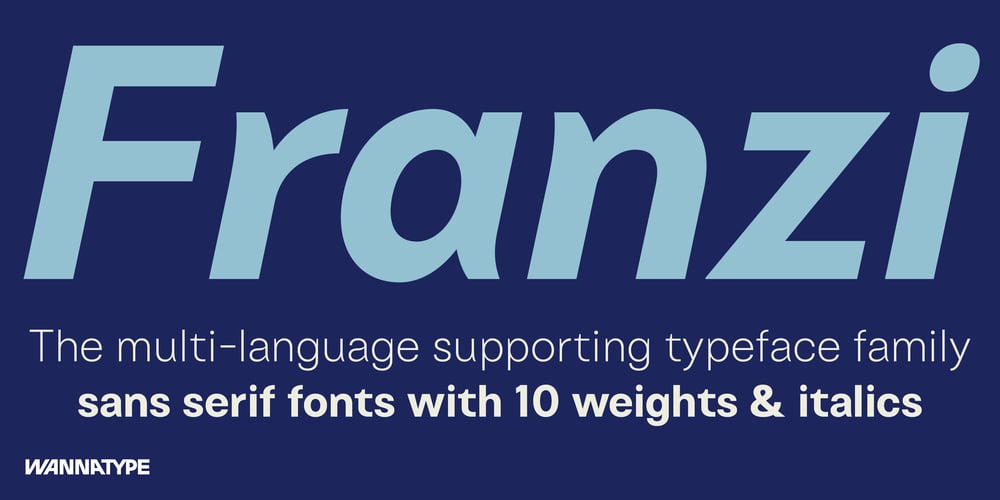
Franzi Variable
Franzi Variable font
Franzi Variable Font Family was designed by Ekke Wolf and published by Wannatype. Franzi Variable contains 1 styles and family package options. The new sans-serif Franzi typeface family – as neutral as can be, but at the same time individual and striking. Its unmistakable character lies in the detail, with no effect pushing itself to the fore. As a wide-running typeface with a relatively large x-height, the typeface family is perfectly suited to small text sizes but, with its elegant details, it leaves nothing to be desired in display applications either. Originally designed with constructed, often rectangular elements, Franzi has gradually been rounded during the development process and is now less hard in order to guarantee optimal legibility.Franzi Variable is designed alongside the italic and the weight axes. The italics are softly and elegantly drawn, while the upright characters appear much more severe. The design appeal reveals itself in the two-storey ‘a’ – a tribute to legibility in body copy; however, for those who prefer the geometric in applications, an alternative single-storey ‘a’ is also available.All styles have small caps, superscript and subscript lowercase letters, lining, non-lining and small caps figures, fractions as well as several ligatures, alternative fonts, symbols and arrows. The Latin uppercase letters are also available as discreet swash variants. In addition to the extended Latin alphabet, the typeface family also includes the complete Greek, Cyrillic and International Phonetic Alphabet IPA.Franzi was created as a further development of an order to produce a sign for a therapy practice in Vienna’s Franz-Hochedlinger-Gasse – hence the name, which is more common as an abbreviation for Franziska than as a diminutive for the male name Franz: Franzi is therefore a hybrid typeface name which has female tendencies.